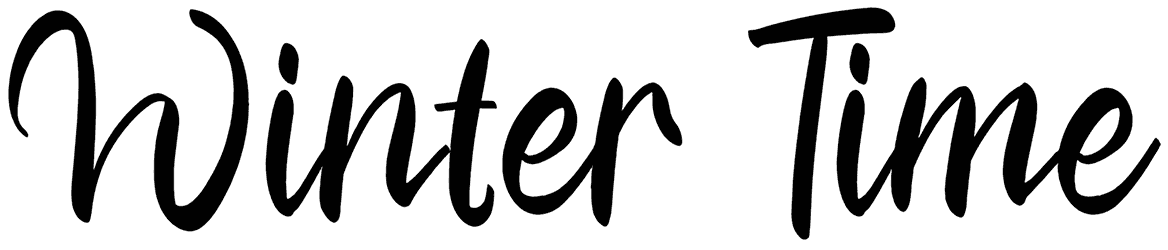
Winter Time Font
Don’t you think it is time to give a modern, smooth outward appearance to your coming design? This holiday font, named Winter Time, has a smooth brush lettering face and can cause a natural mood in your texts. Just set Winter Time on your posters, invitation cards, logotypes, ads, or any other like, and show a swirly aesthetic face.